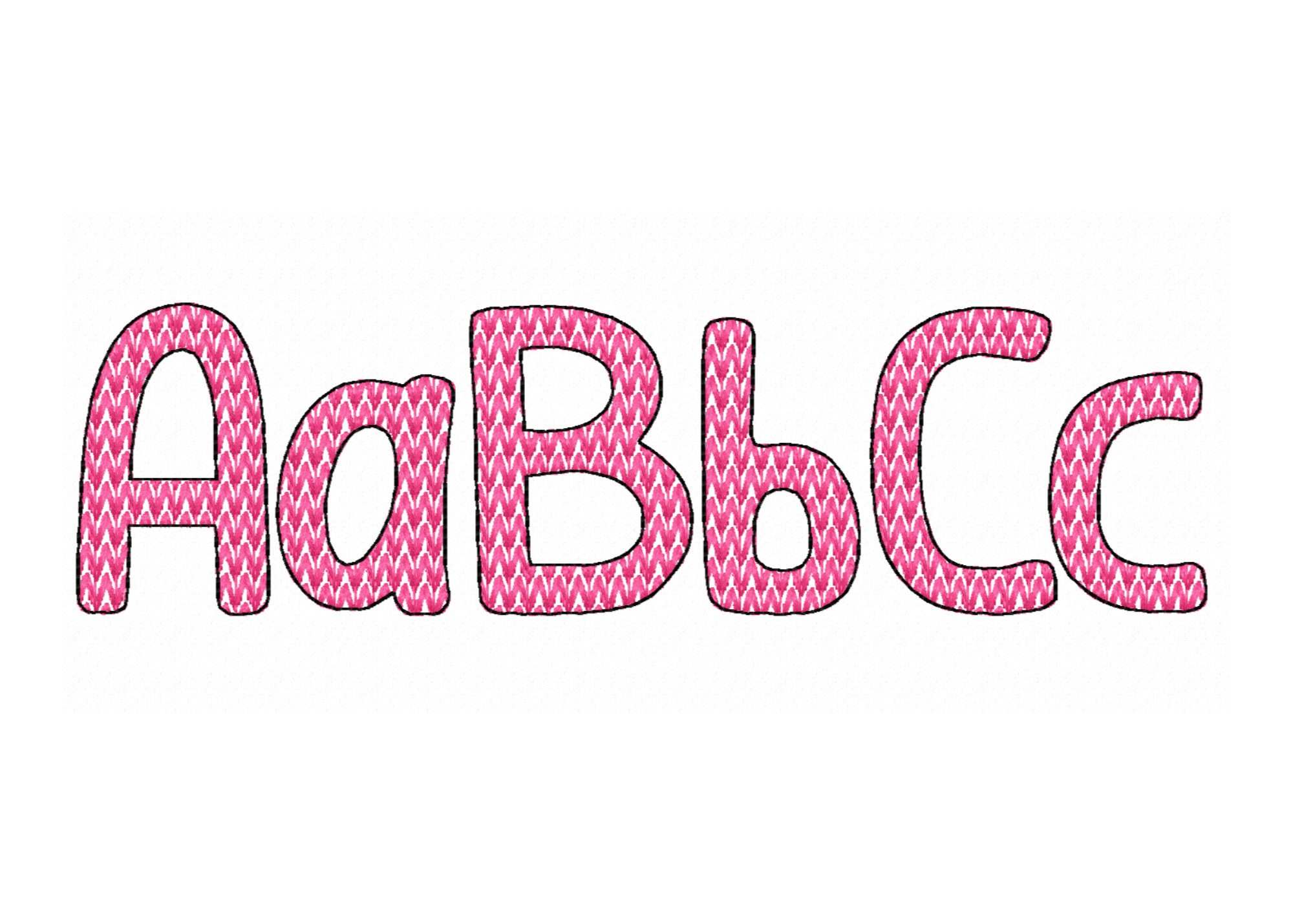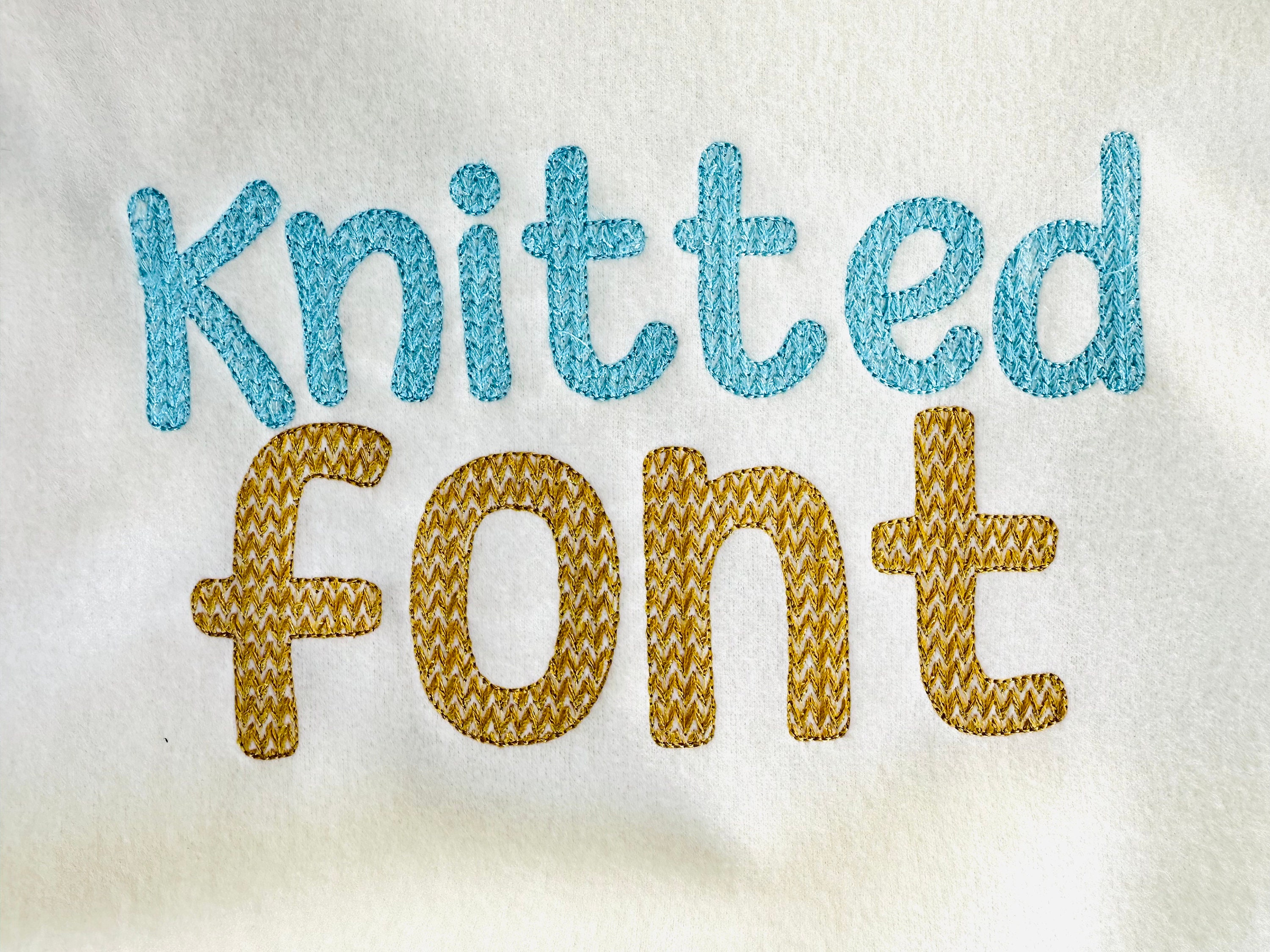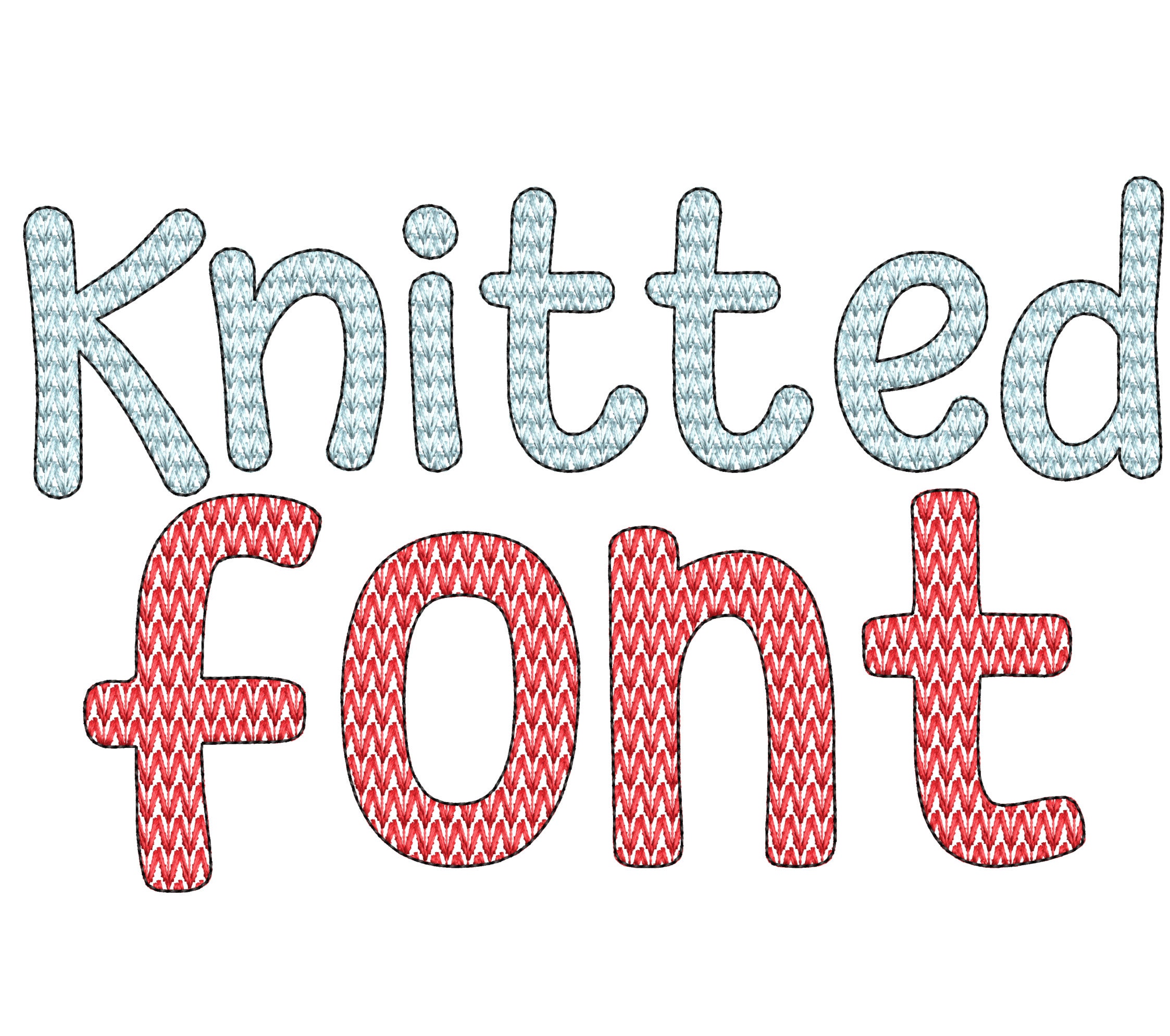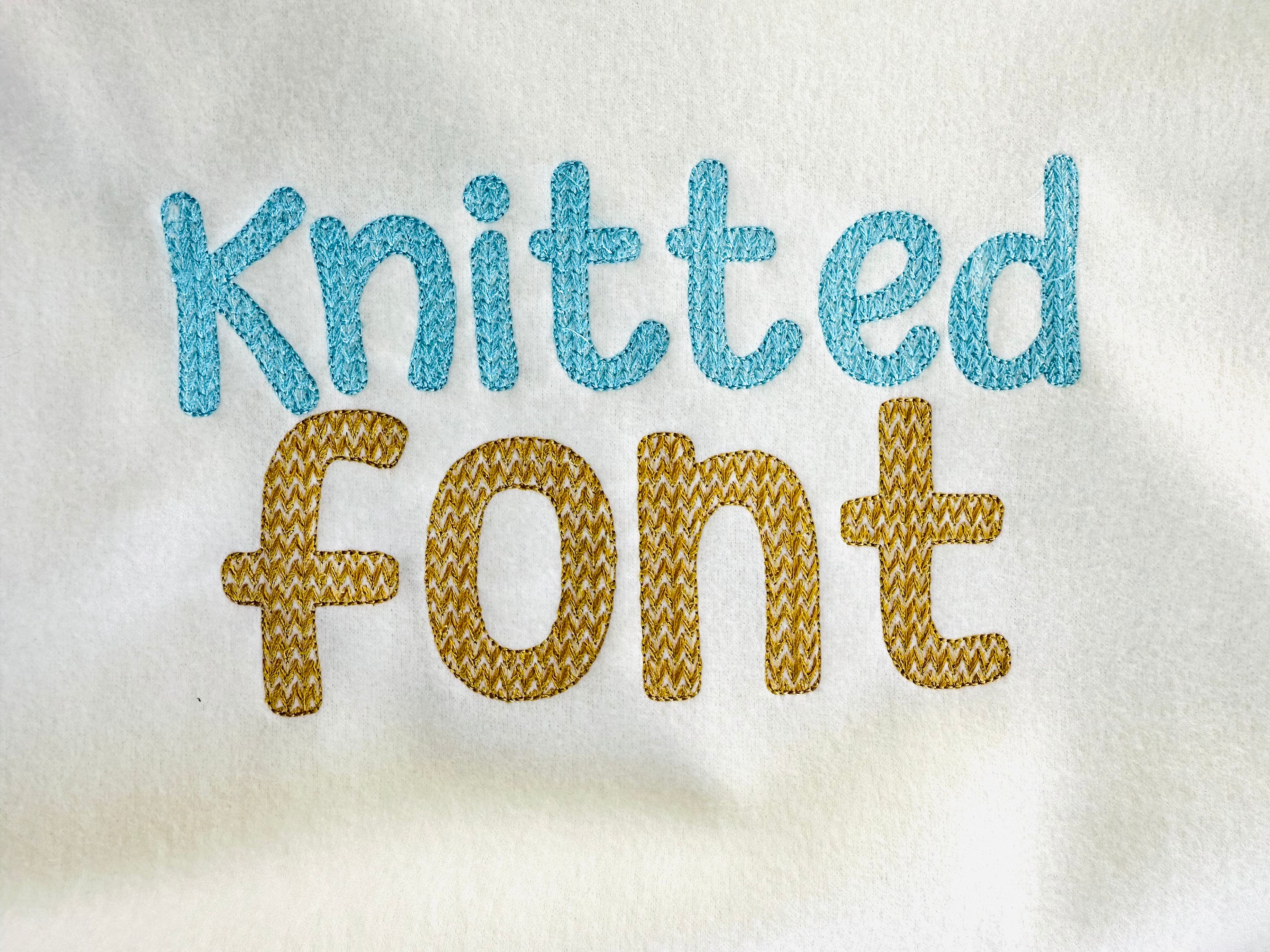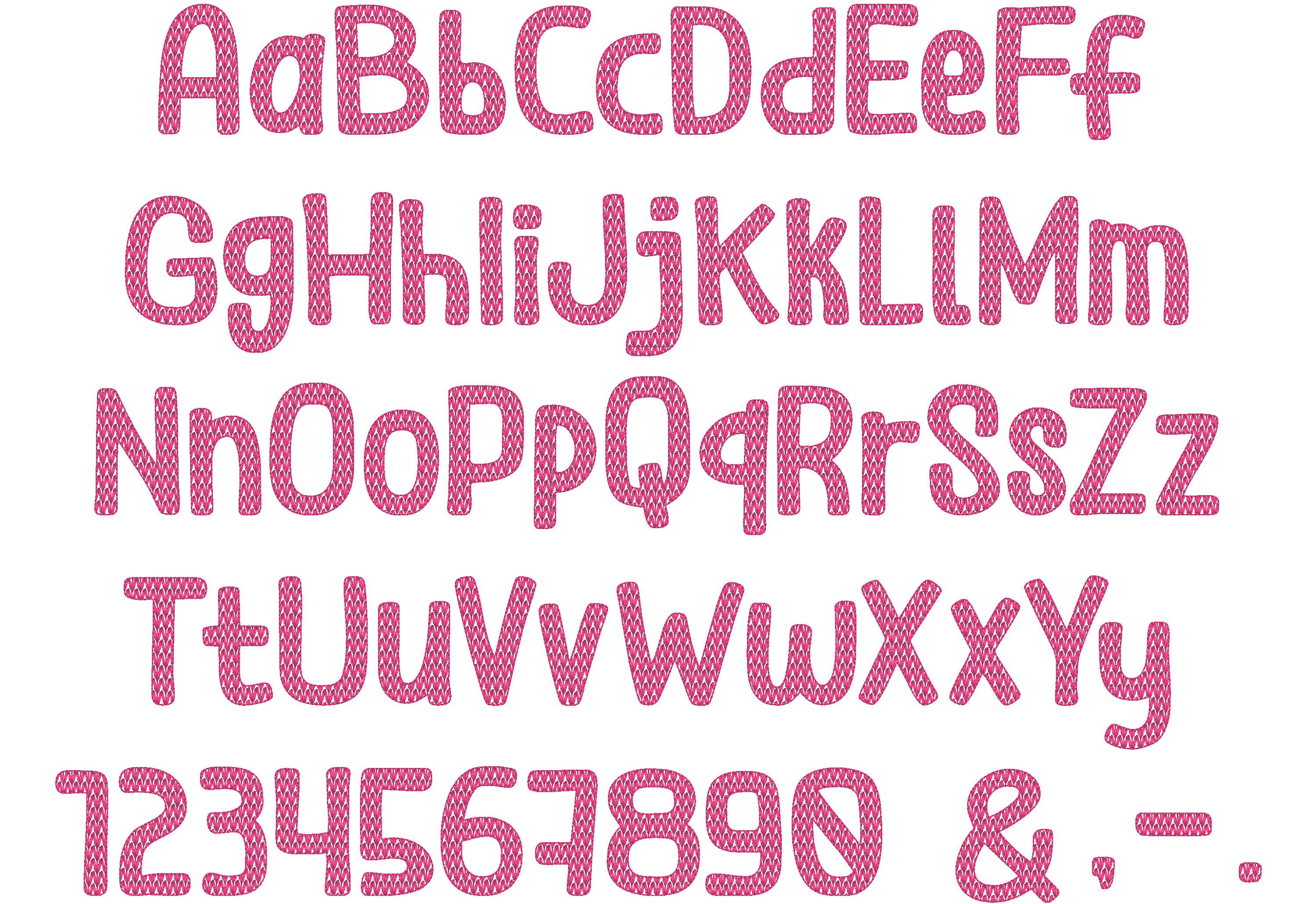
Knitted effect knit sweater stitch Font texture alphabet monogram machine embroidery designs up to 5 inches BX included kids shirt design
Knit stitch is a part of the embroidery.
The whole alphabet uppercase and lowercase Aa-Zz, numbers 0-9, and special marks & . , -